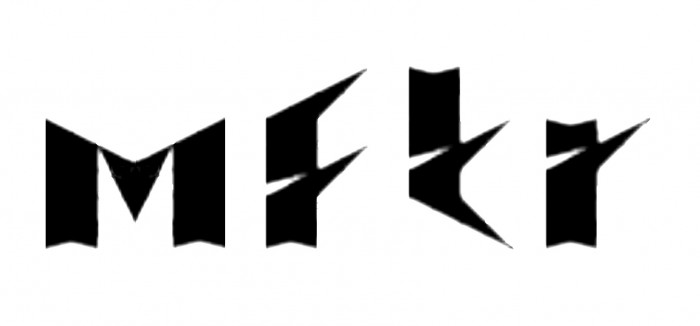
Metal!
Very interesting shapes here, as usual. I'd like to suggest you some small modifications to a few glyphs (m, f, t, r) that I think will increase the readability of the font. We stay tuned.
@elmoyenique Thanks for the suggestions, they have been applied.